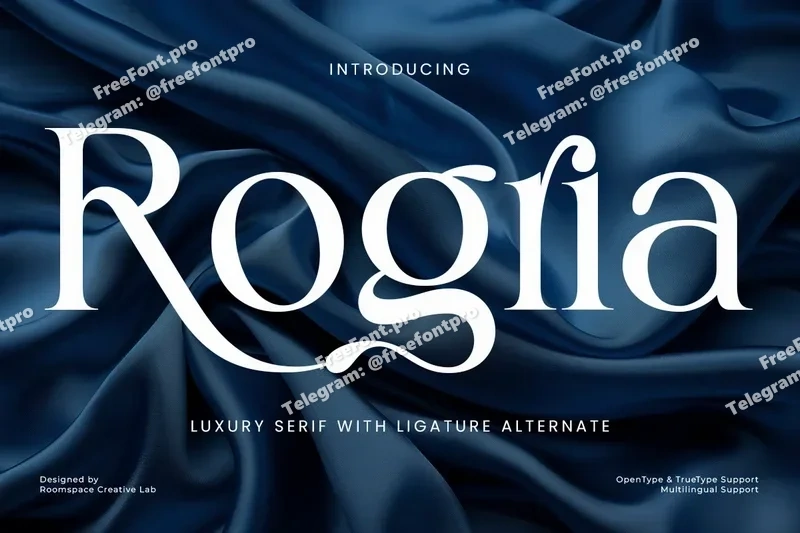
Rogria Serif – Modern Elegant Logo Font
Rogria Serif is a sophisticated typeface designed for creatives who value refined typography and timeless aesthetics. With its dramatic contrast and sculptural curves, it brings a unique voice to high-end branding and editorial design. Rogria Serif’s elegant strokes and strong vertical stress convey luxury, structure, and modern poise in every headline or title.
Crafted with a premium audience in mind, this font is ideal for industries such as fashion, skincare, publishing, hospitality, and wedding services. Its legibility at various sizes and multilingual support makes it a versatile asset for designers working across global markets. From printed magazines to digital ads, Rogria Serif adds character and charm to every composition. When your message demands elegance and authority, Rogria Serif becomes the visual voice your brand deserves. Designed to make a bold yet graceful impact, it invites your audience into a world of sophistication, trust, and artistic expression. Choose Rogria Serif and design with timeless clarity.